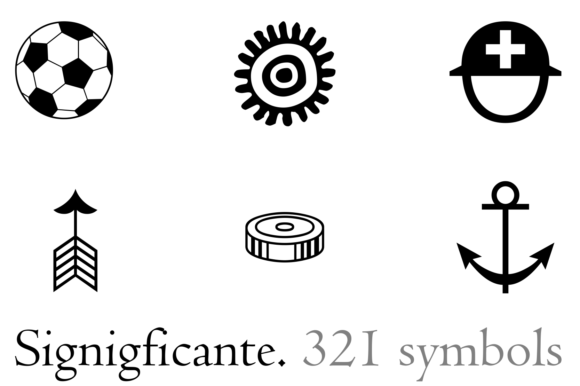
Welcome to the realm of Signigficante, a playful and captivating dingbat font family designed to infuse your creative projects with a touch of whimsy and joy. This extraordinary collection features a diverse array of 321 unique dingbats, each meticulously crafted by the talented designers at Intellecta Design, to bring an unparalleled level of charm and personality to your designs.
Dive into the world of Signigficante and let your imagination soar. Unleash your creativity and explore endless possibilities with this versatile font family. Design captivating logos and branding elements that resonate with your audience, leaving a lasting impression wherever they see it. Create eye-catching social media posts, flyers, and brochures that demand attention and captivate your readers.
With Signigficante, your designs will possess an irresistible allure, drawing the eyes of your audience and keeping them engaged. Its playful nature invites interaction and encourages exploration, making it the perfect choice for projects that aim to engage and entertain. Let Signigficante be your secret weapon to create designs that resonate, inspire, and leave a lasting impact.